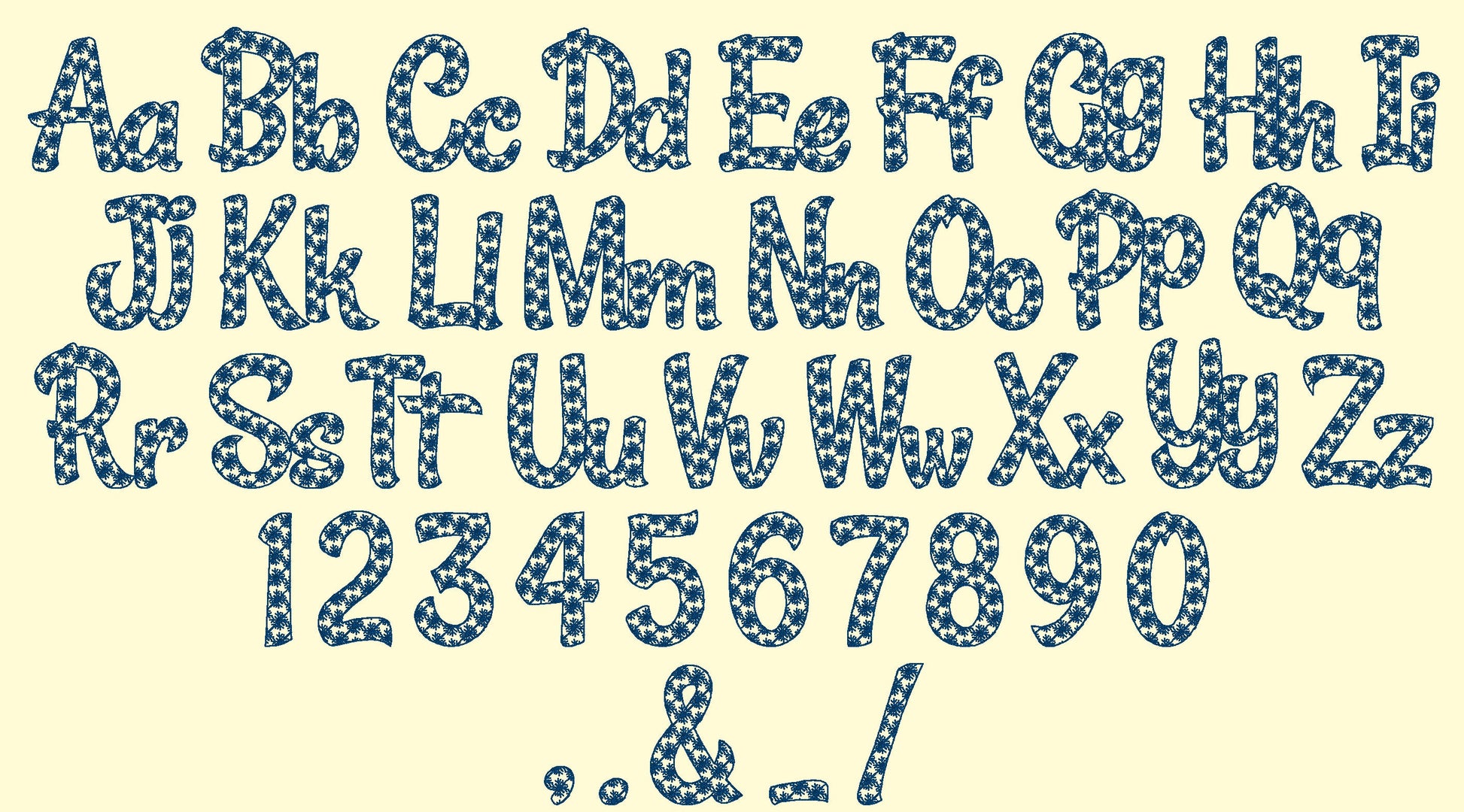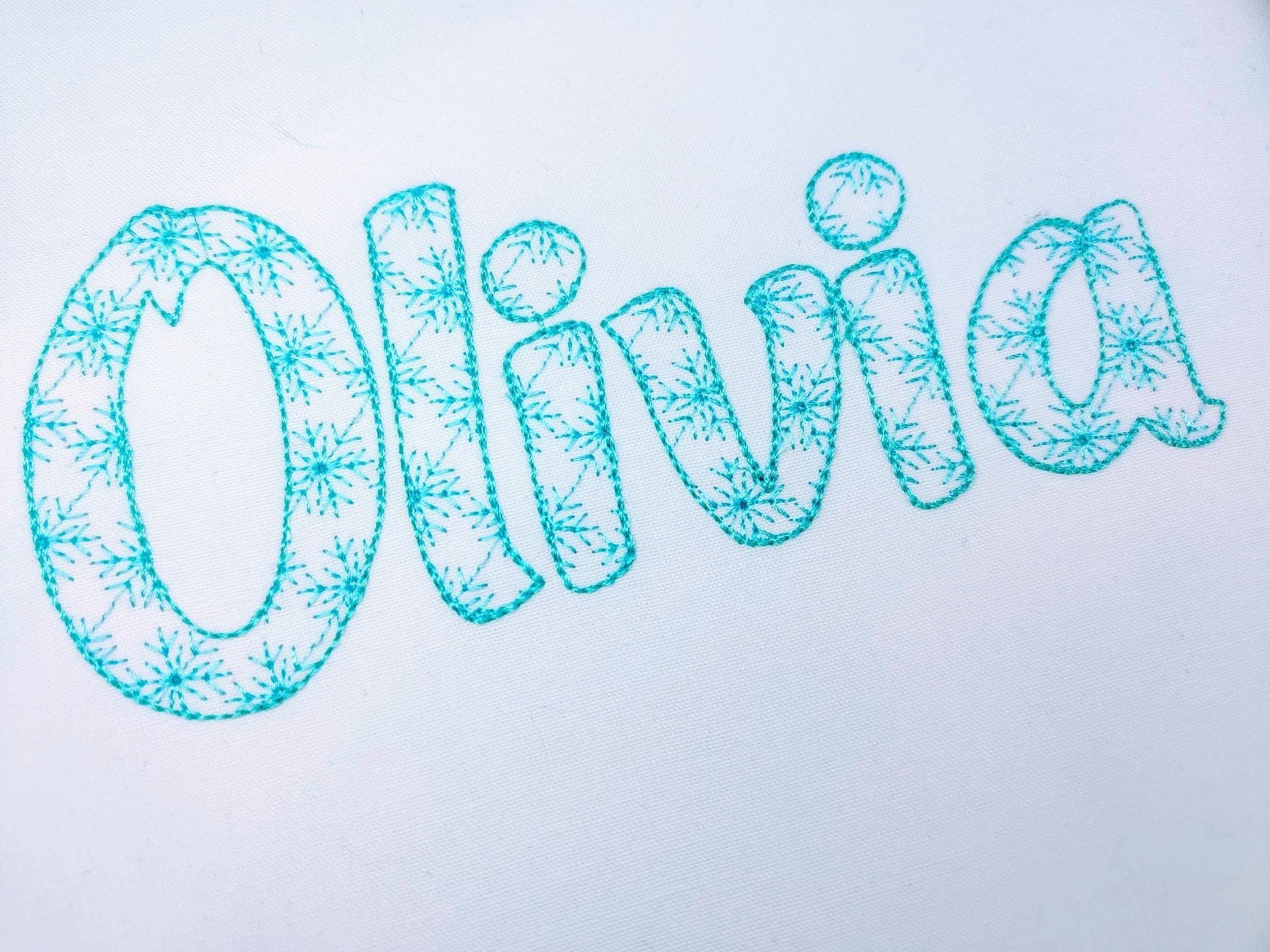
Or click to open the linkA snowflake font in light sketch stitching that looks like lace. Quick and pretty for Christmas stockings, winter sweaters, pillows and ornaments.
Uppercase and lowercase letters, numbers 0 to 9 and punctuation, in five sizes: 2, 3.5, 4, 5 and 6 inches. Quick outline stitching lets the fabric show through.